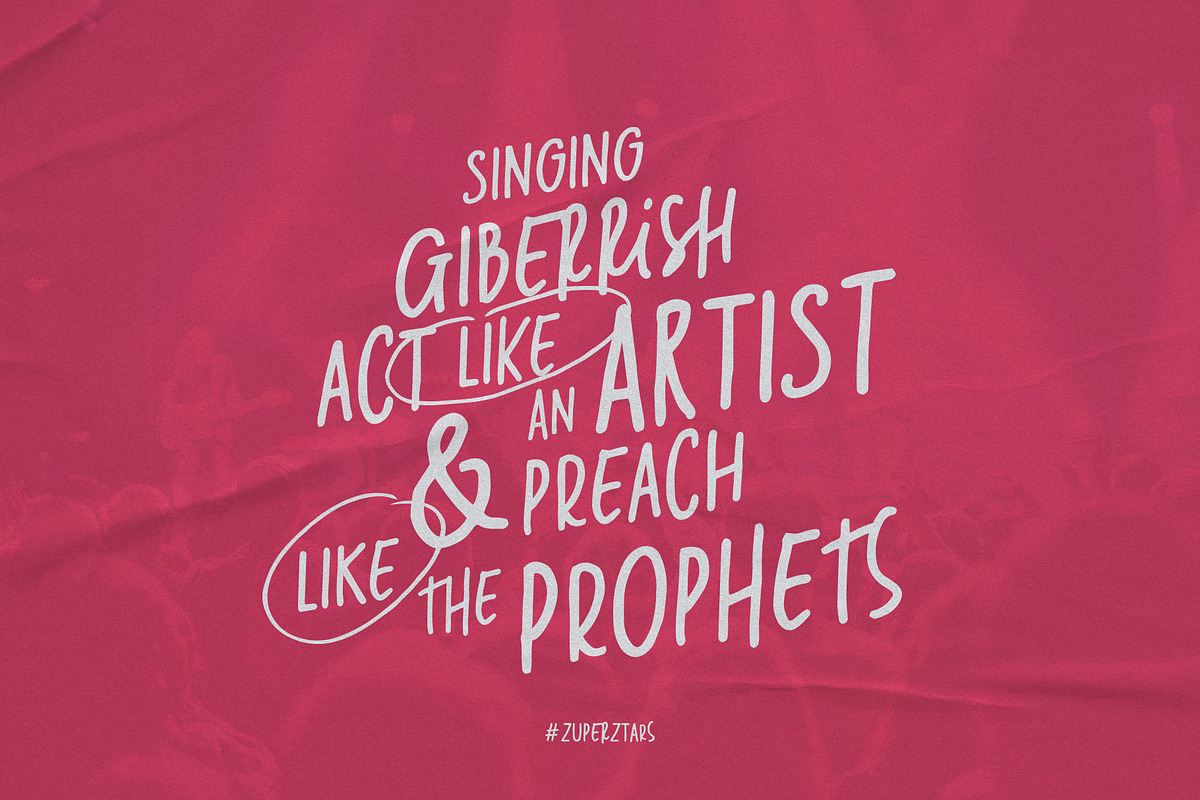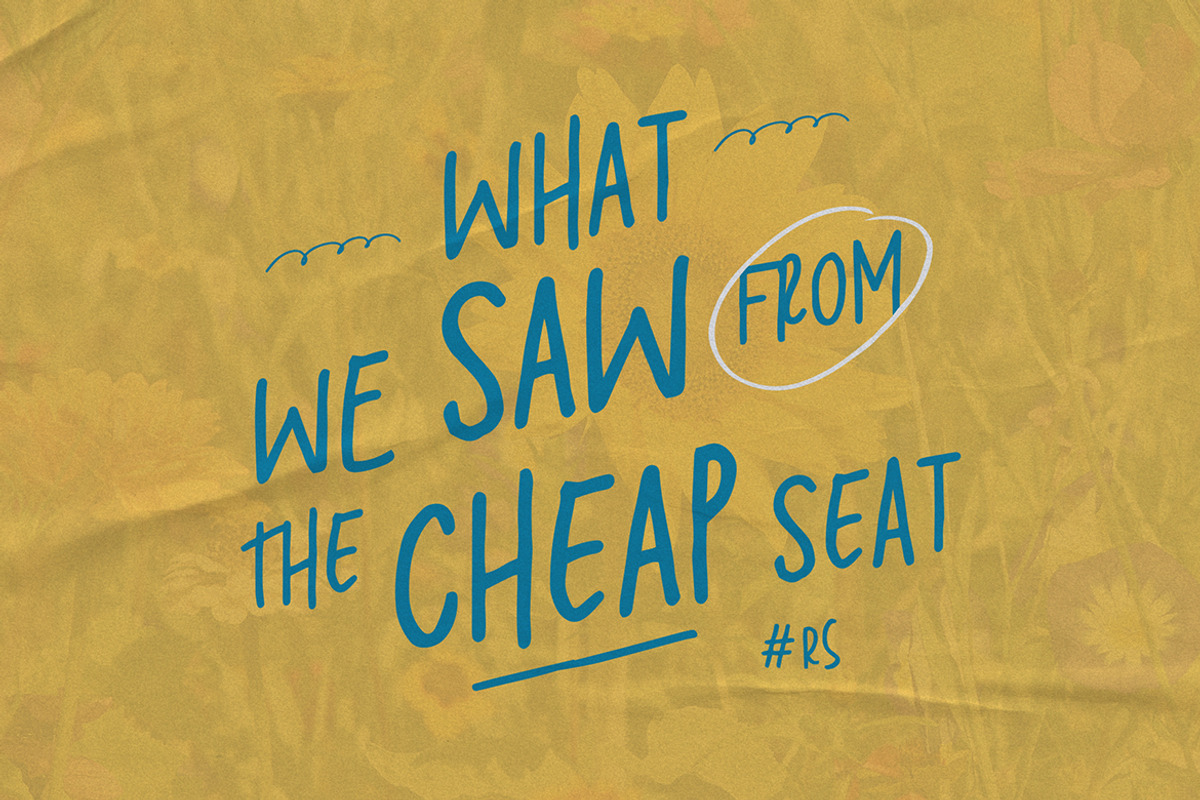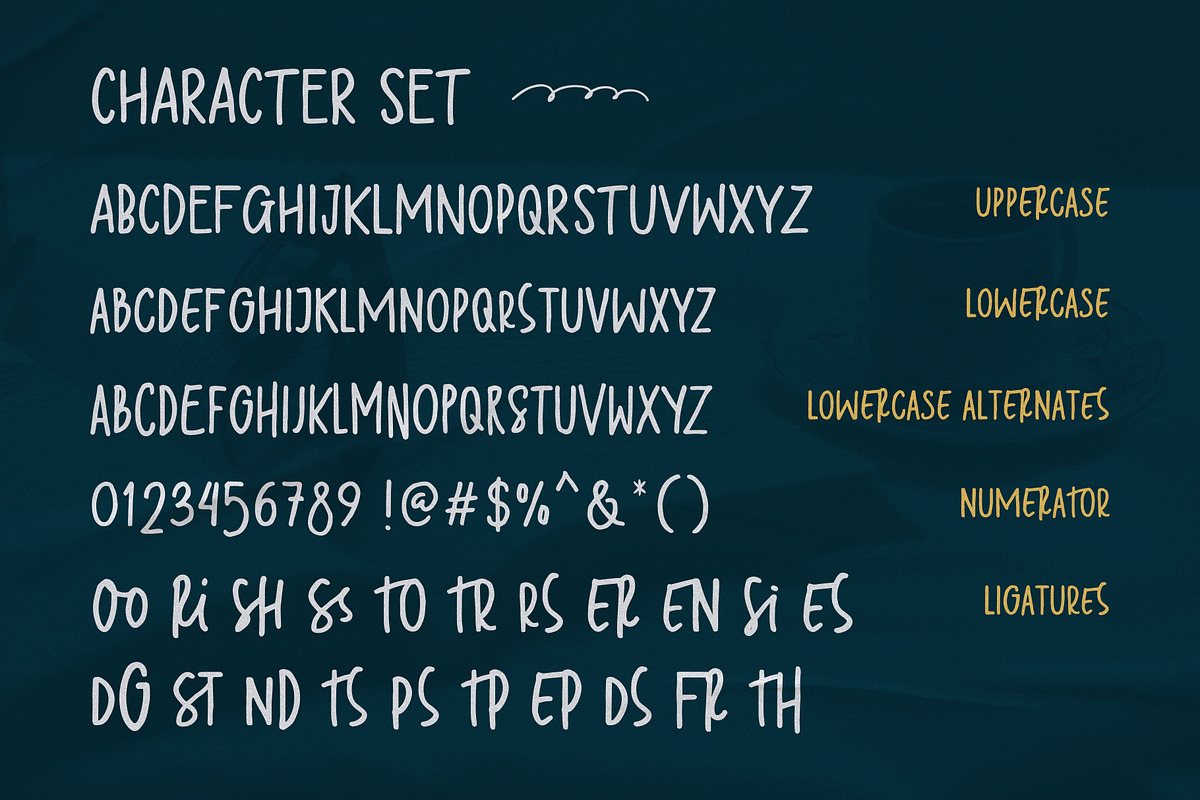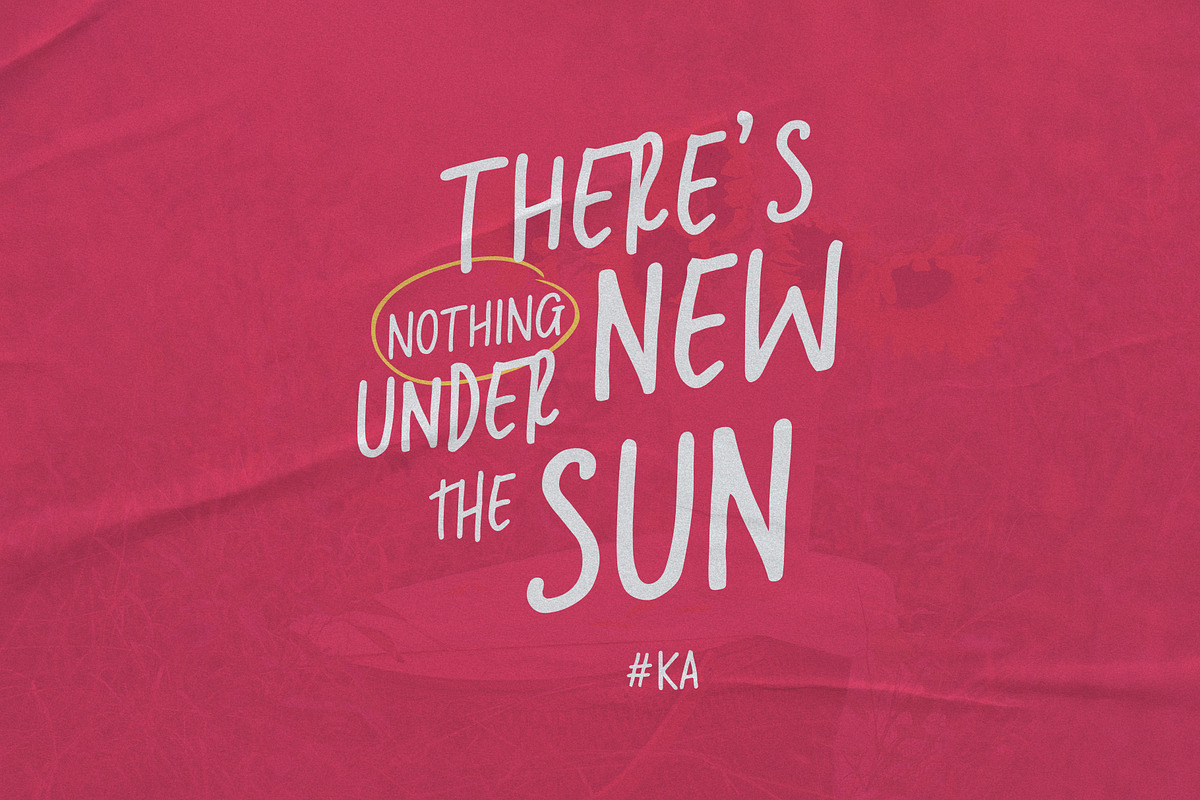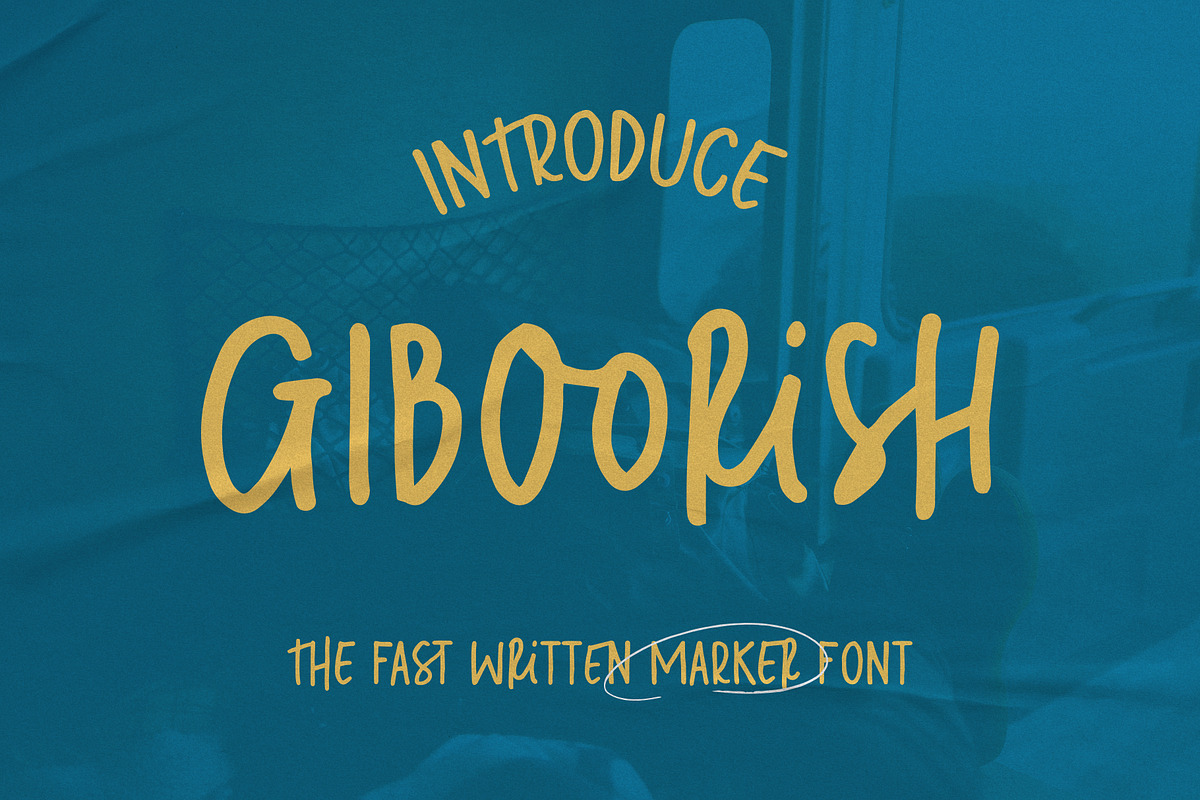
Giboorish | Handwritten Marker
Giboorish | it's a fast written font with marker. with freehand and lot of ligatures character it's make perfect to create Elegant Design, Modern, Vintage, Retro and more. So Choice any Glyphs and create the awesome typography and design use this.